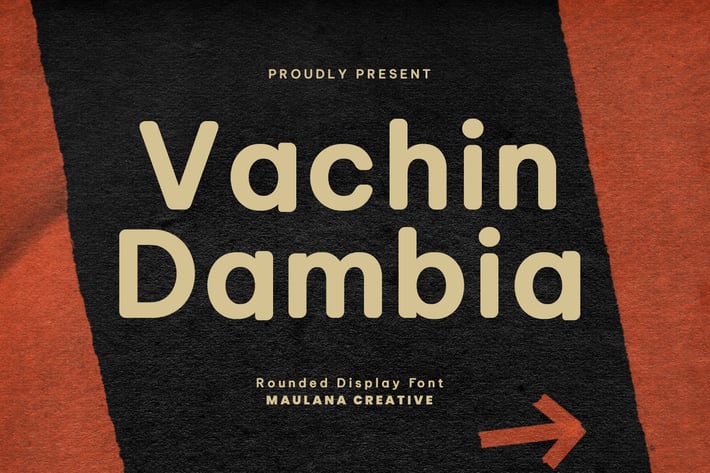
Vachin Dambia Rounded Display Font
Vachin Dambia is a rounded modern sans serif font. With bold tall and smooth stroke, fun character with a bit of ligatures and alternates. To give you an extra creative work. Vachin Dambia font support multilingual more than 100+ language. This font is good for logo design, Social media, Movie Titles, Books Titles, a short text even a long text letter and good for your secondary text font with sans or serif. Make a stunning work with Vachin Dambia font.